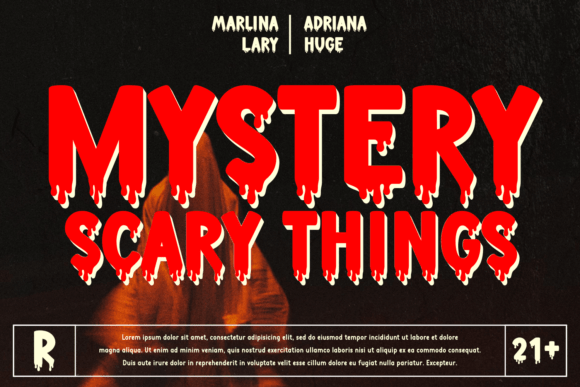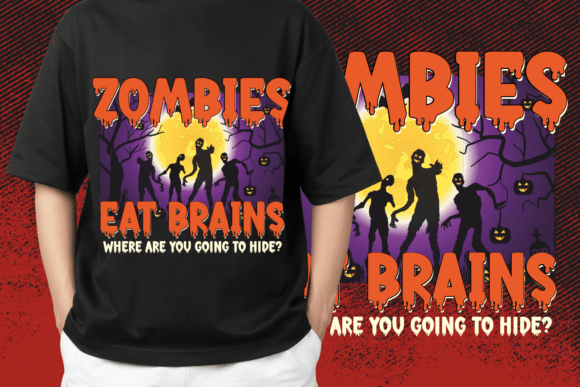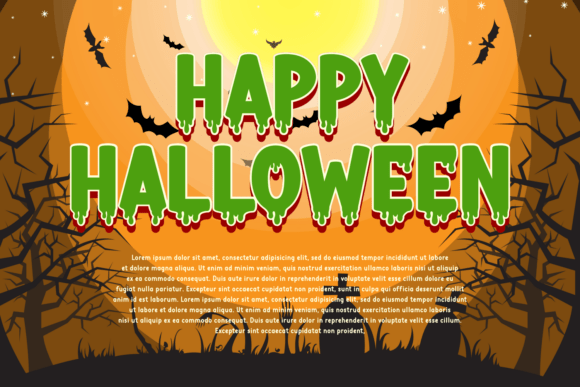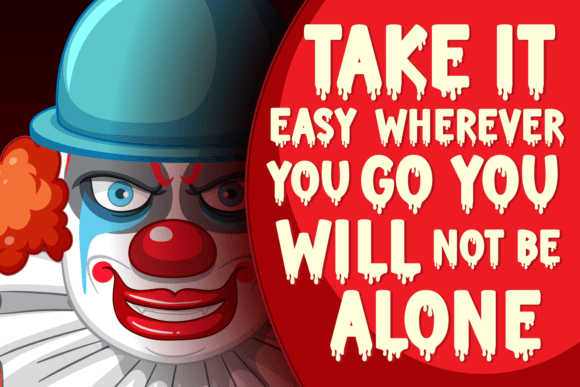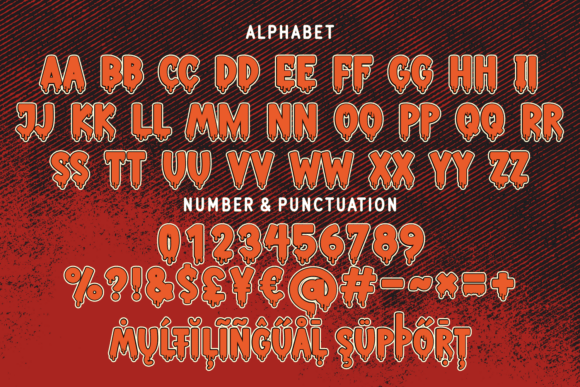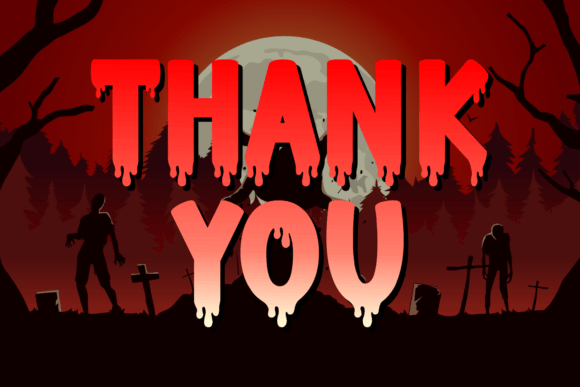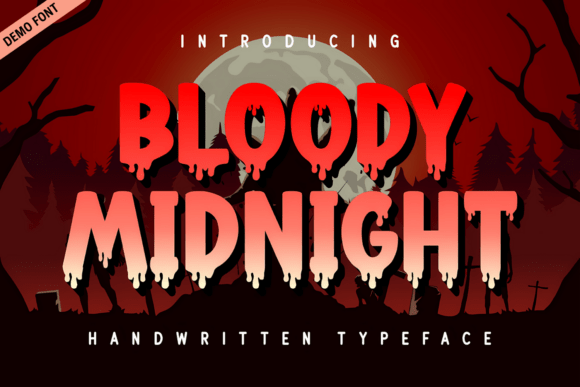
Bloody Midnight Demo Font by Kelik 7ntypes Font: A Spine-Chilling Typeface for Horror Enthusiasts
Are you a designer or crafter looking for a font that will send shivers down the spine of your audience? Look no further than the Bloody Midnight Demo Font by Kelik 7ntypes Font. This bold, uppercase display font is the perfect addition to any horror-themed project, with its dripping blood-like letterforms and spooky, gruesome atmosphere.
A Font that Oozes with Horror and Dramatic Flair
Bloody Midnight is a typeface that is sure to make a statement. Its bold, uppercase letters are crafted to mimic the look of thick, wet ink or blood, with exaggerated terminals that resemble melting wax or splattered gore. The stark contrast between its bold structure and bleeding elements gives it a striking cinematic feel, perfect for evoking a sense of horror and drama.
Perfect for Horror-Themed Projects
Whether you’re designing a Halloween graphic, a horror movie poster, a haunted house promotion, a scary game title, or eerie merchandise, Bloody Midnight is the perfect font for the job. Its creepy, gruesome atmosphere is sure to grab the attention of your audience and leave a lasting impression. The font’s multilingual support and dynamic punctuation make it versatile and easy to use, allowing you to create a wide range of designs with ease.
Crafted with Attention to Detail
Each glyph in Bloody Midnight is carefully crafted to ensure a high level of detail and realism. The font’s designer, Kelik 7ntypes Font, has paid close attention to the subtleties of blood-like textures and the way they interact with the font’s bold structure. The result is a typeface that looks like it was splattered onto the page with blood, adding a level of authenticity to your designs.
Beyond Just a Creepy Font
Bloody Midnight is more than just a creepy font – it’s a scream-worthy statement. It’s a way to add a touch of horror and drama to your designs, and to create a lasting impression on your audience. Whether you’re a professional designer or a crafty DIY enthusiast, this font is sure to become a go-to in your collection.
Key Features of Bloody Midnight
- Bold, uppercase display font: Perfect for grabbing attention and making a statement
- Dripping blood-like letterforms: Add a touch of horror and drama to your designs
- Multilingual support: Use the font to create designs in a variety of languages
- Dynamic punctuation: Add a touch of realism to your designs with dynamic punctuation
- Exaggerated terminals: Resemble melting wax or splattered gore for added realism
Tips for Using Bloody Midnight
Here are a few tips for getting the most out of Bloody Midnight:
- Use it sparingly: Bloody Midnight is a bold font, so use it sparingly to add emphasis to your designs
- Experiment with colors: Try using Bloody Midnight with different colors to create a unique look
- Pair it with other fonts: Combine Bloody Midnight with other fonts to create a striking contrast
Bloody Midnight Demo Font by Kelik 7ntypes Font is a spine-chilling typeface that’s perfect for horror enthusiasts and designers alike. Its bold, uppercase letters and dripping blood-like letterforms make it a scream-worthy addition to any design project. With its multilingual support and dynamic punctuation, it’s versatile and easy to use. So why wait? Download Bloody Midnight today and add a touch of horror and drama to your designs!